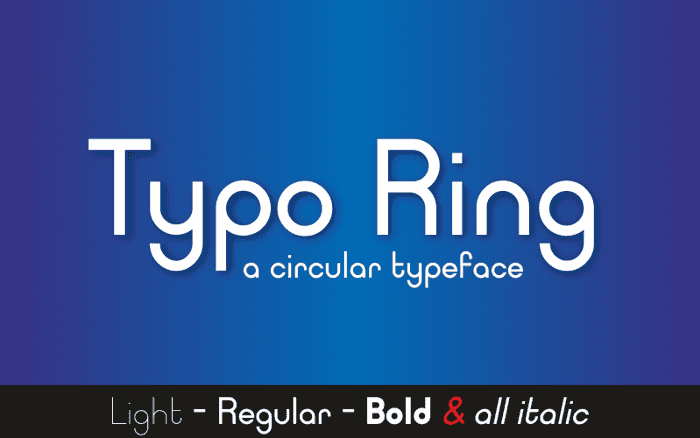
Typo Ring is a sans-serif font designed after retro ski + travel posters that is brand new for May 2021. For a wide range of uses: prints, web pages, brands and advertisements, magazines and products, packaging and labels, invitations and note paper, fashion wear.